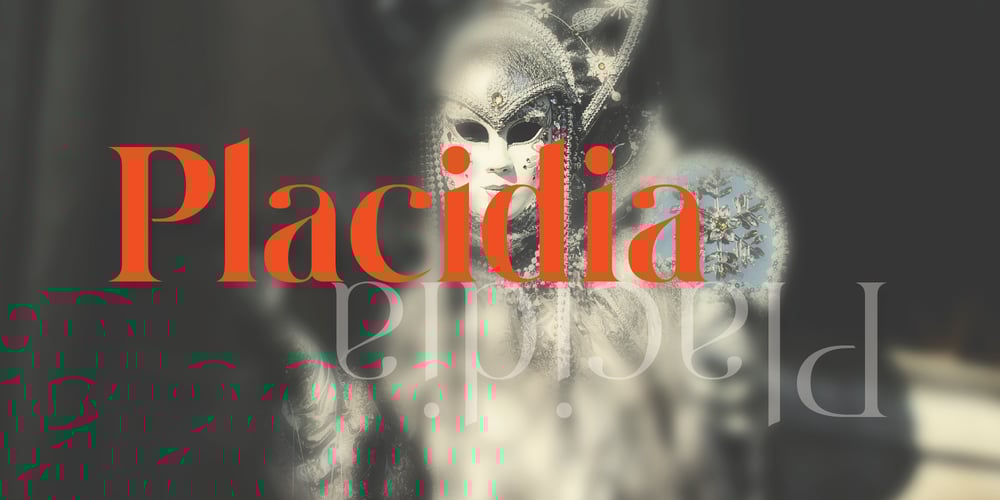
Placidia Font Family was designed by Asgeir Pedersen and published by Asgeir Pedersen. Placidia contains 7 styles and family package options. Placidia is stylish, elegant and versatile, true to traditions yet “modern”, ideal for texts such as titles, headings and intros. The individual (lower case) characters are more open and wider than other similar fonts. This makes Placidia a good choice both screens as well as for print purposesPlacidia is a multi-lingual font set covering most European languages (except Greek and Cyrillic).Try Placidia together with a simple, geometric sans font for maximum effect.